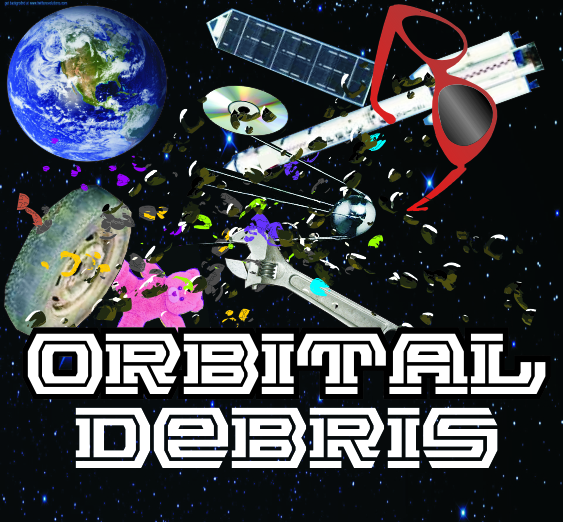
Orbital Debris
by elzero
See also Orbital Solid by elzero.
Your brackets in () are square brackets, which should go in []...
Wow.  Awesome.  I'm impressed.  I can see you put some work into it.
This is really cool. What if you  used the outer shape of the 'y' to the v/V?
Something like this?
Fixed  ()  [] v V
Love thıs font!
NIce design. :) I would suggest adding an alternative Q with a straight leg.